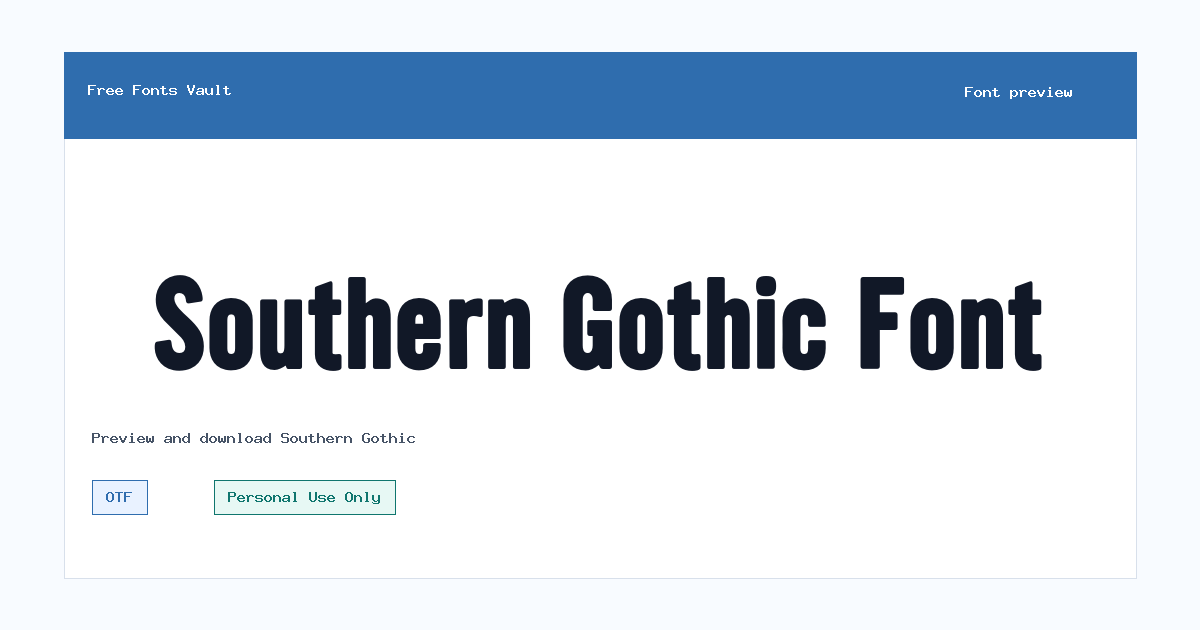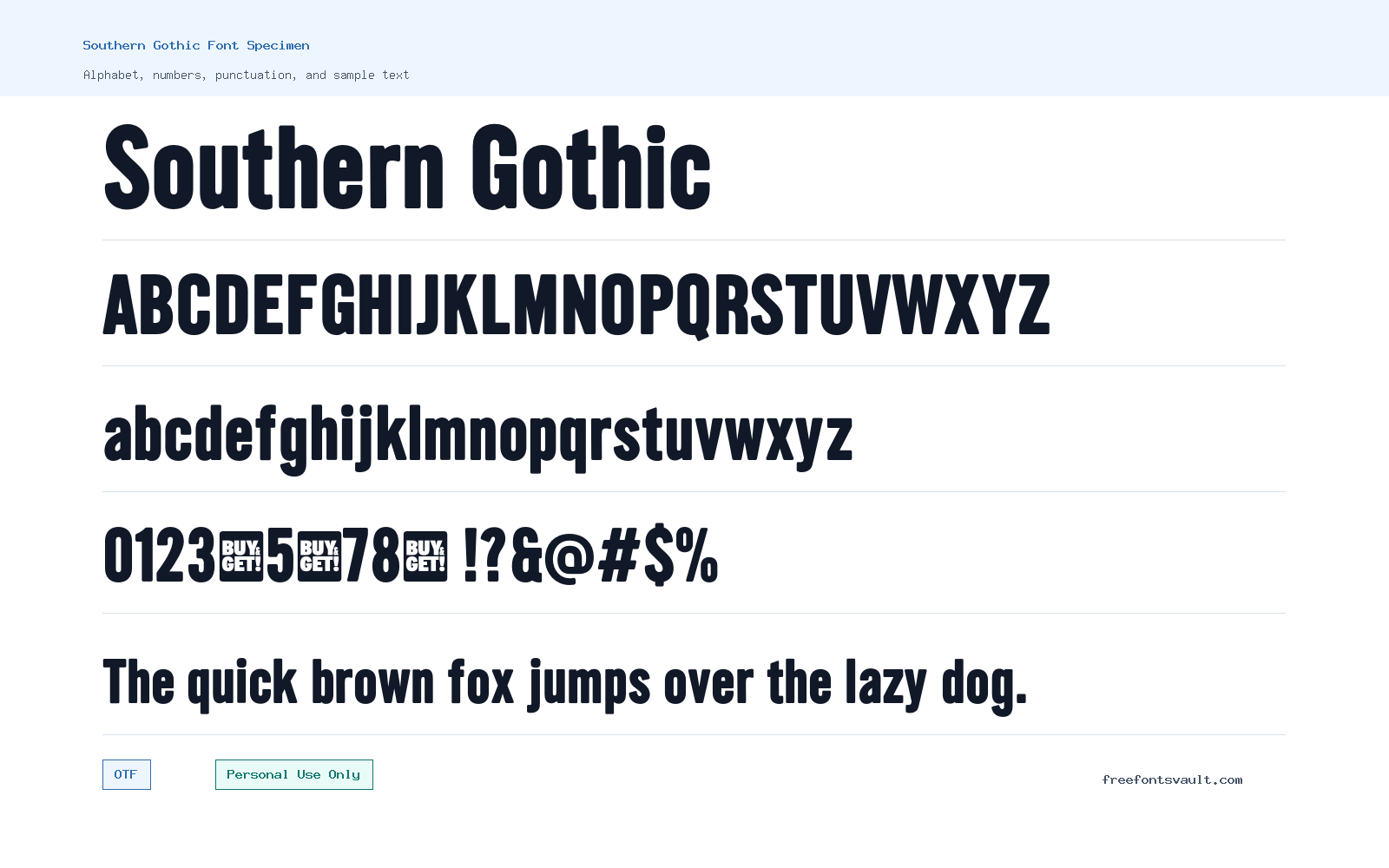
Southern Gothic
- Designer HENRIavecunK
- Foundry HENRIavecunK Type Co
Southern Gothic is a personal-use font from HENRIavecunK Type Co, credited to designer HENRIavecunK. It comes as an OTF regular style and is best treated as a display choice for projects where you want a strong, named type style without relying on a large font family.
About Southern Gothic
Southern Gothic is labeled as a sans serif font, and the downloadable file is a regular, normal-style OTF. Because the family currently centers on one regular weight, it is most useful when you need a single headline voice rather than a full typography system. Try it first in the preview with the exact words you plan to use, especially if your design depends on a short title, brand name, poster heading, or social graphic. A one-style font can work very well for focused display use, but it needs careful testing at the size and spacing you intend to use.
For logo sketches, Southern Gothic can be a useful starting point for wordmarks, badges, labels, and mockups where the text is short and the shape of the name matters. For posters and web mockups, test it in large sizes first, then check whether the same text still reads clearly when scaled down. If you plan to use it in a layout with body text, pair it with a quiet, highly readable sans serif or serif so Southern Gothic can stay focused on titles and emphasis. Avoid using it for long paragraphs unless the preview proves that the spacing, rhythm, and readability hold up for your content.
- Normal style with a 400 weight value, suitable for previewing as the main display style.
- Sans serif labeling, making it easier to pair with simple serif or neutral sans serif text fonts.
- Logo concepts and personal branding drafts
- Poster headlines and event graphics
- Website hero text and landing page mockups
- Social media titles, quote cards, and promotional mockups
- Packaging concepts, labels, and badge-style layouts
- Short display text where one regular font style is enough
Is Southern Gothic good for logos?
What fonts pair well with Southern Gothic?
Pair it with a simple, readable text face. A neutral sans serif can keep a modern layout clean, while a restrained serif can add contrast without competing with the display font.
Can I use Southern Gothic for website text?
Use it mainly for headings, hero text, and short display areas. For body copy, navigation, and small text, choose a separate font that is built for long reading.